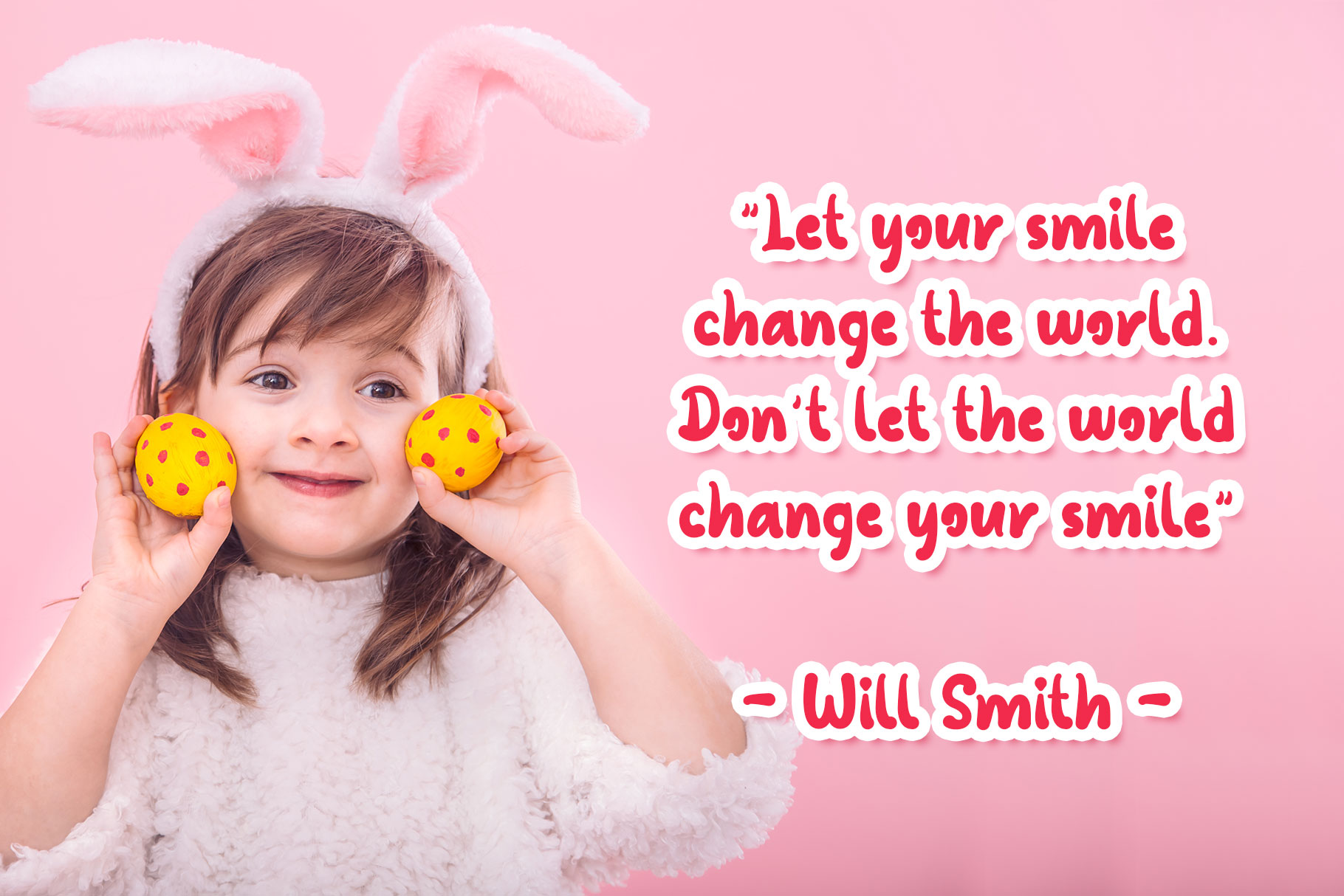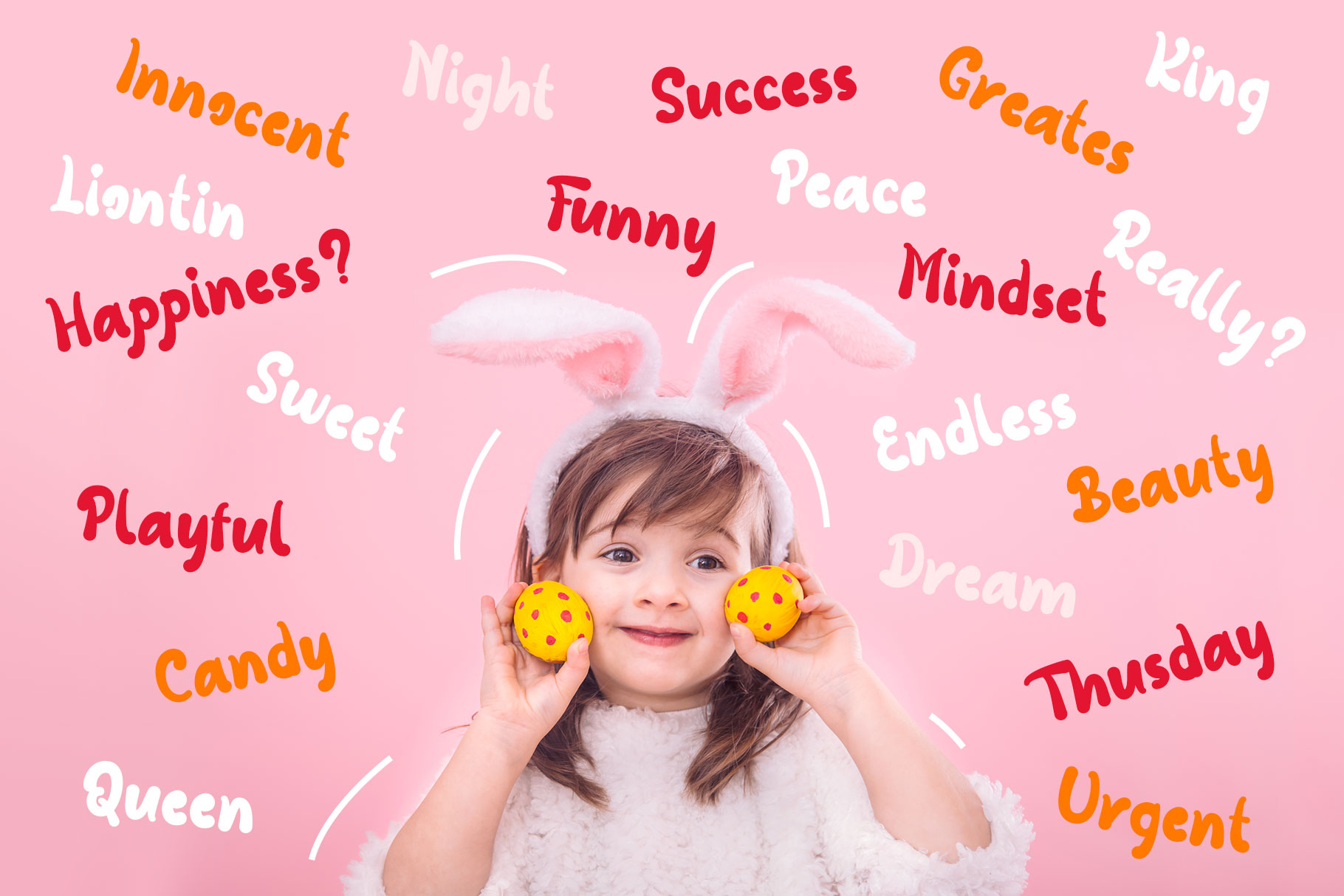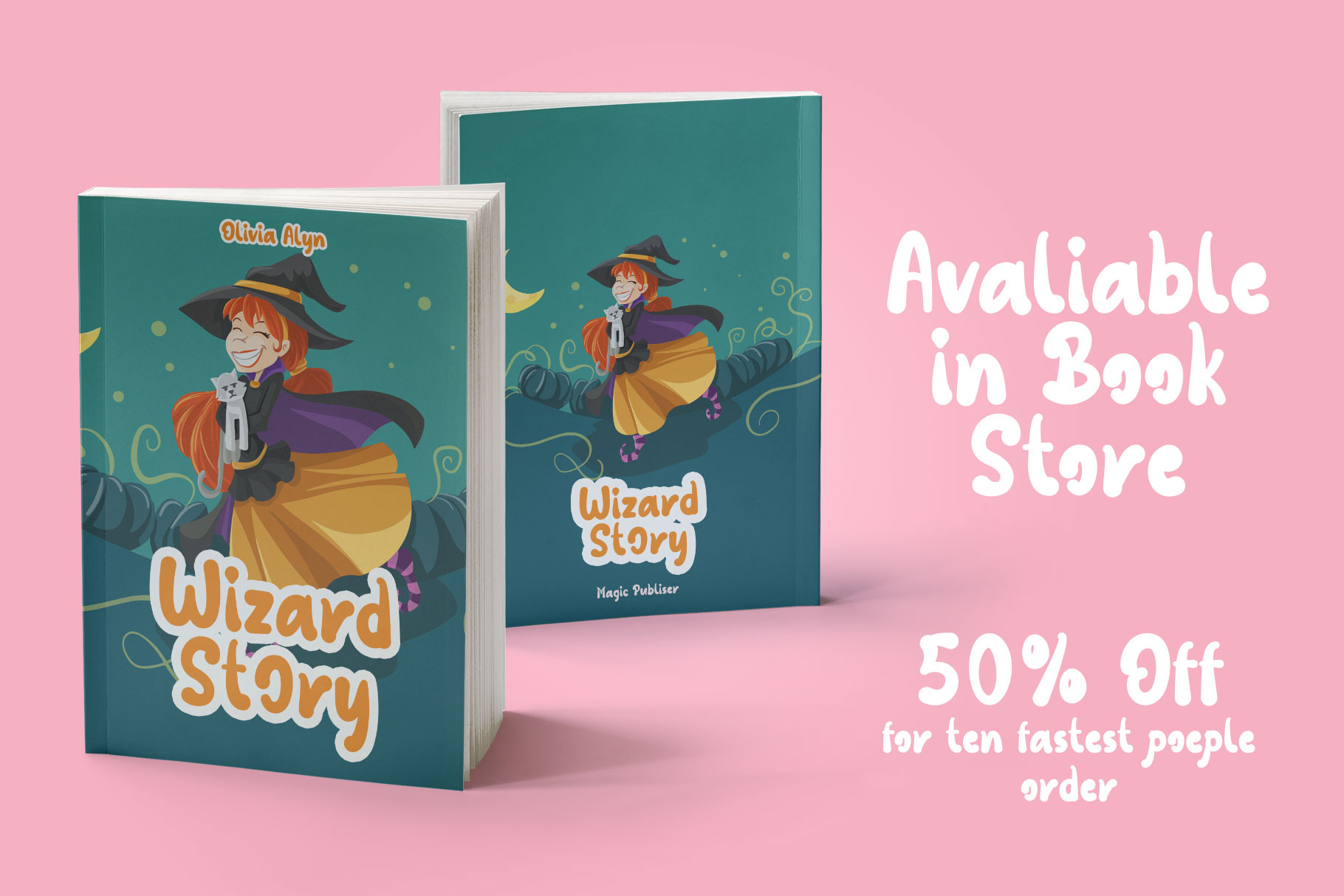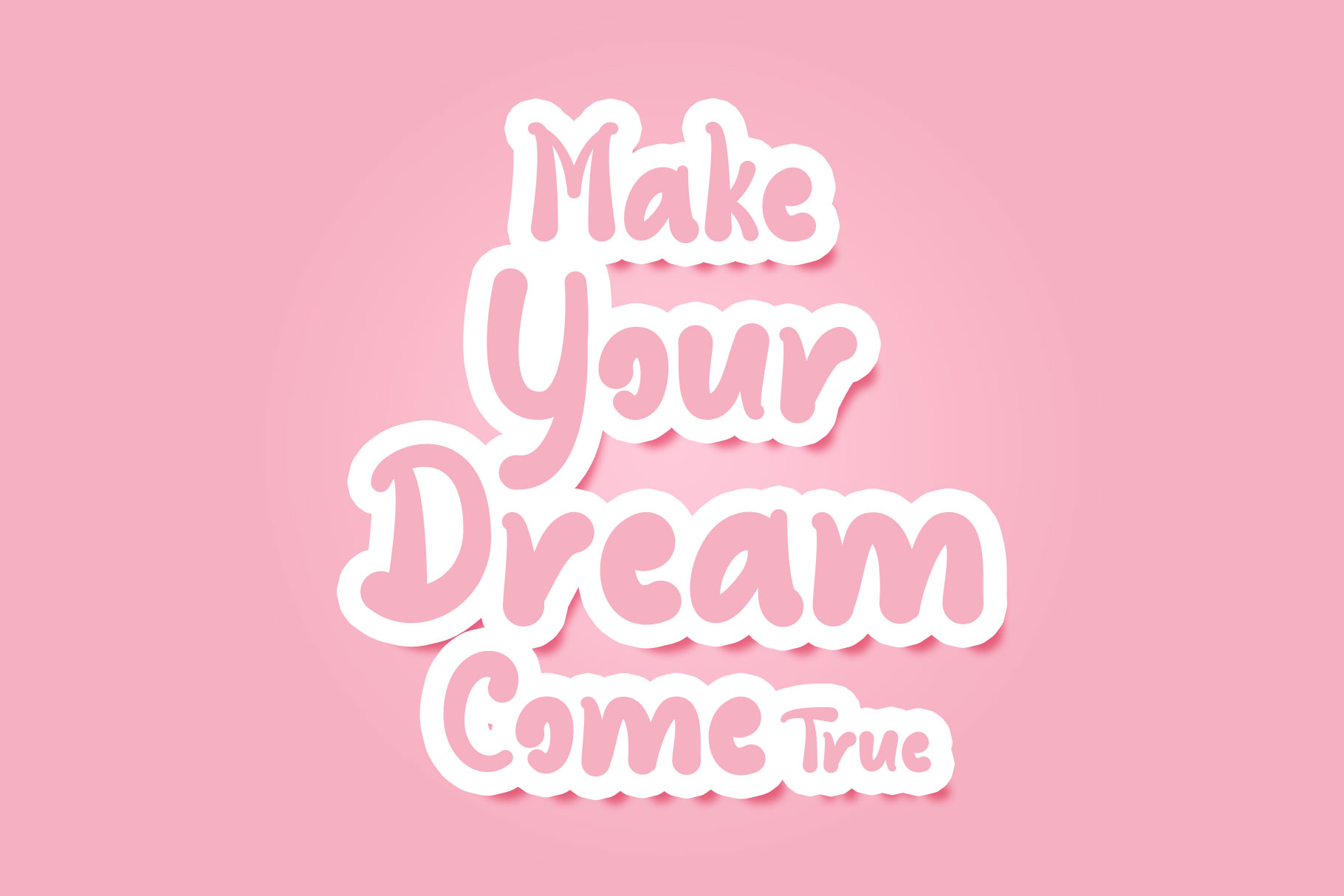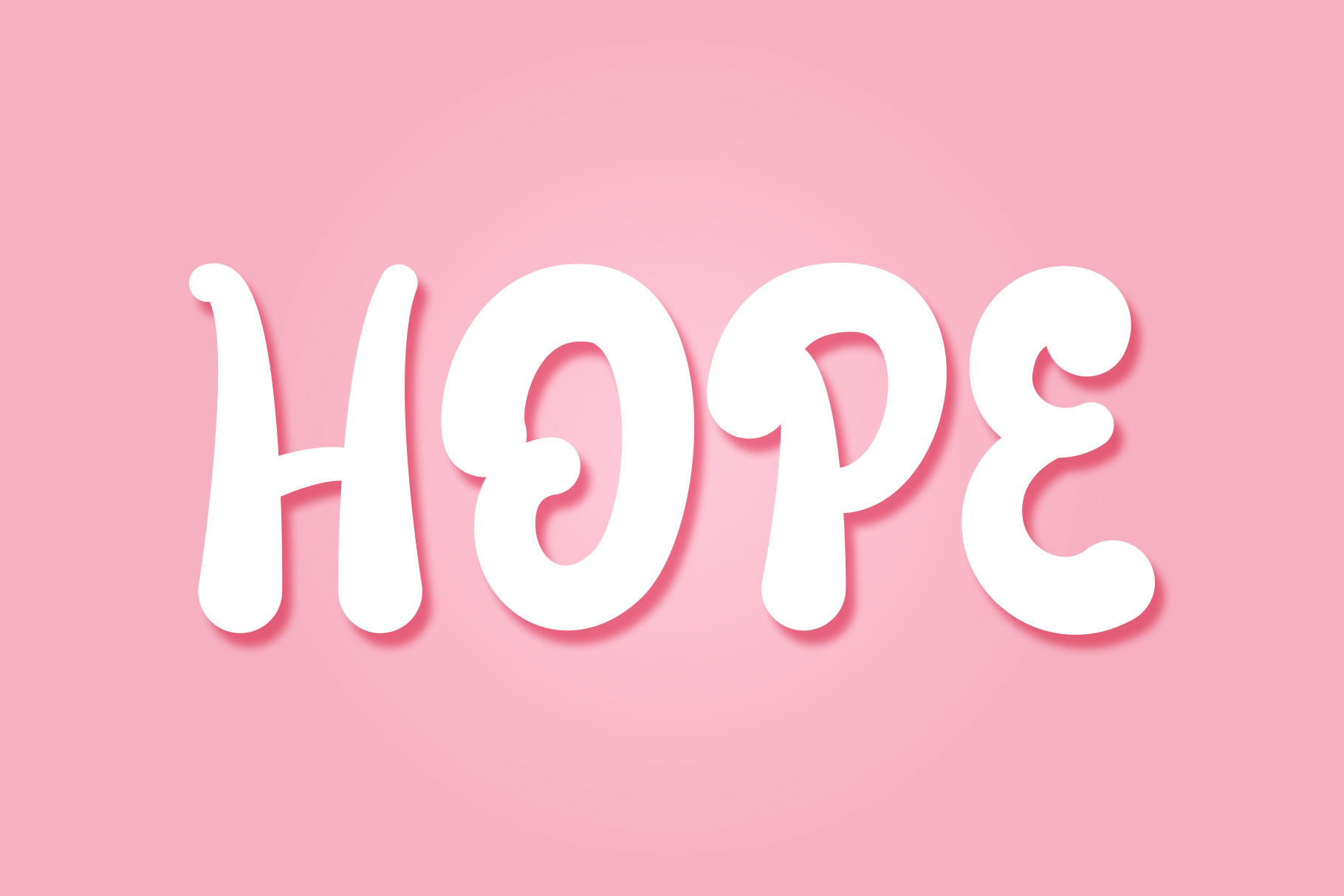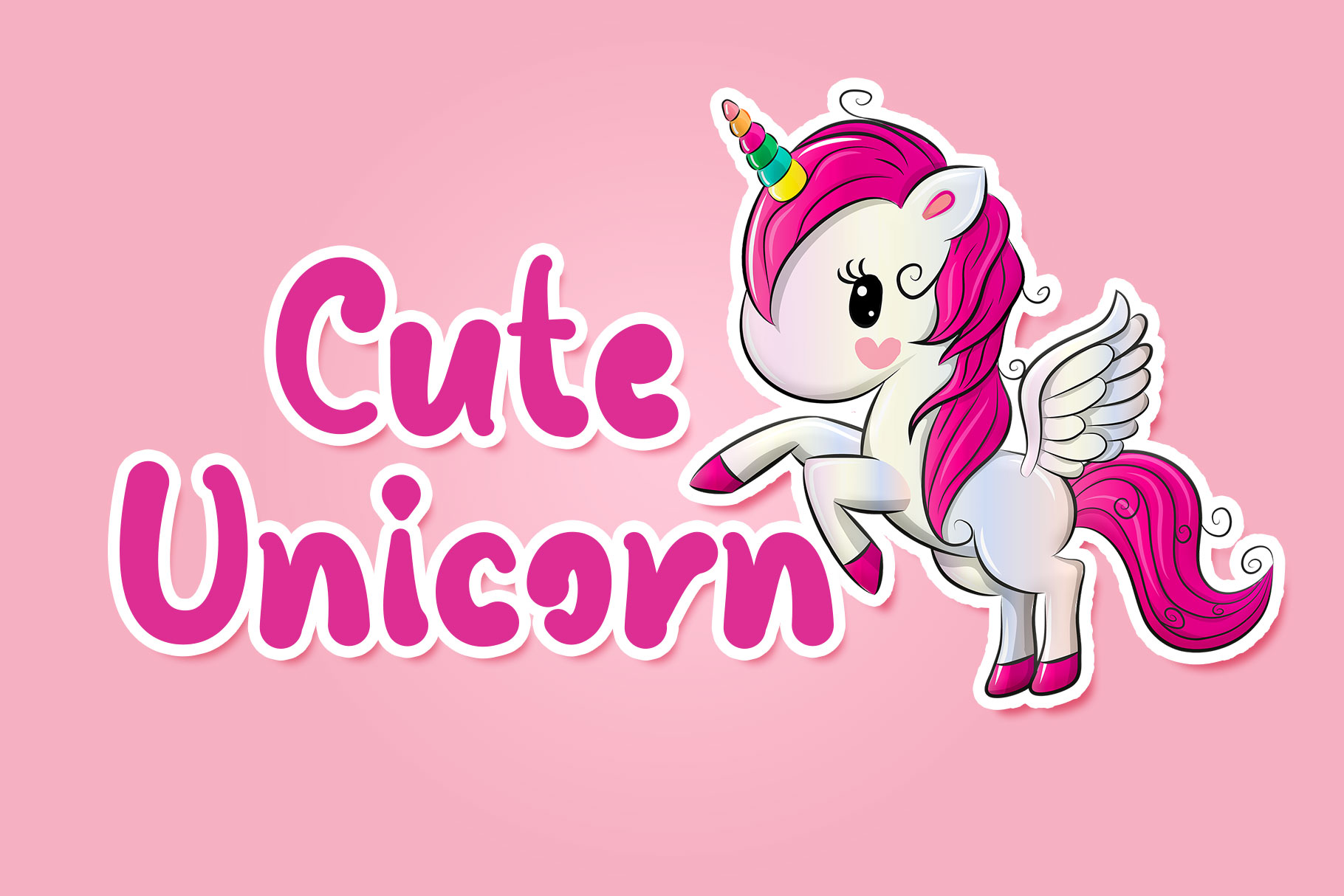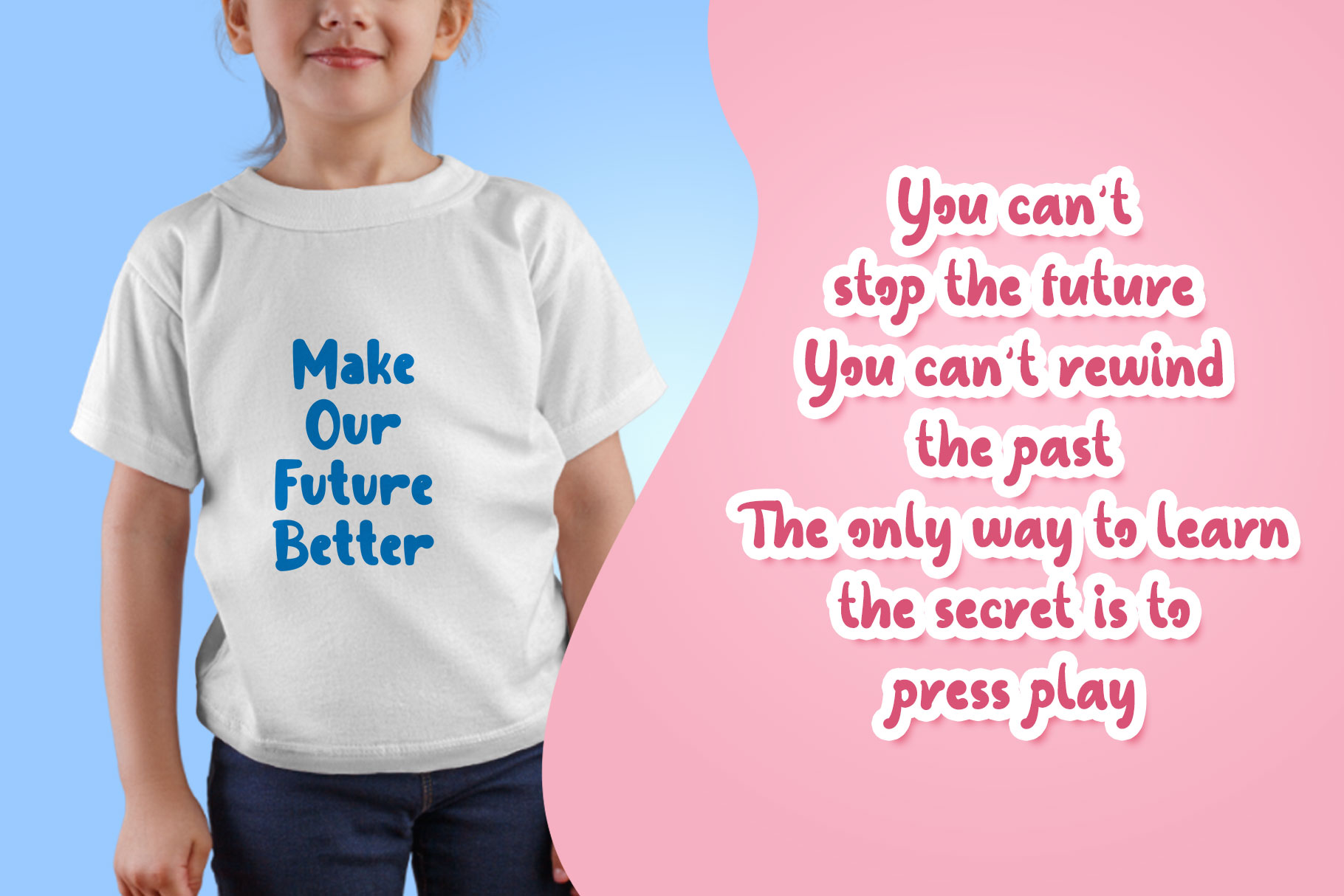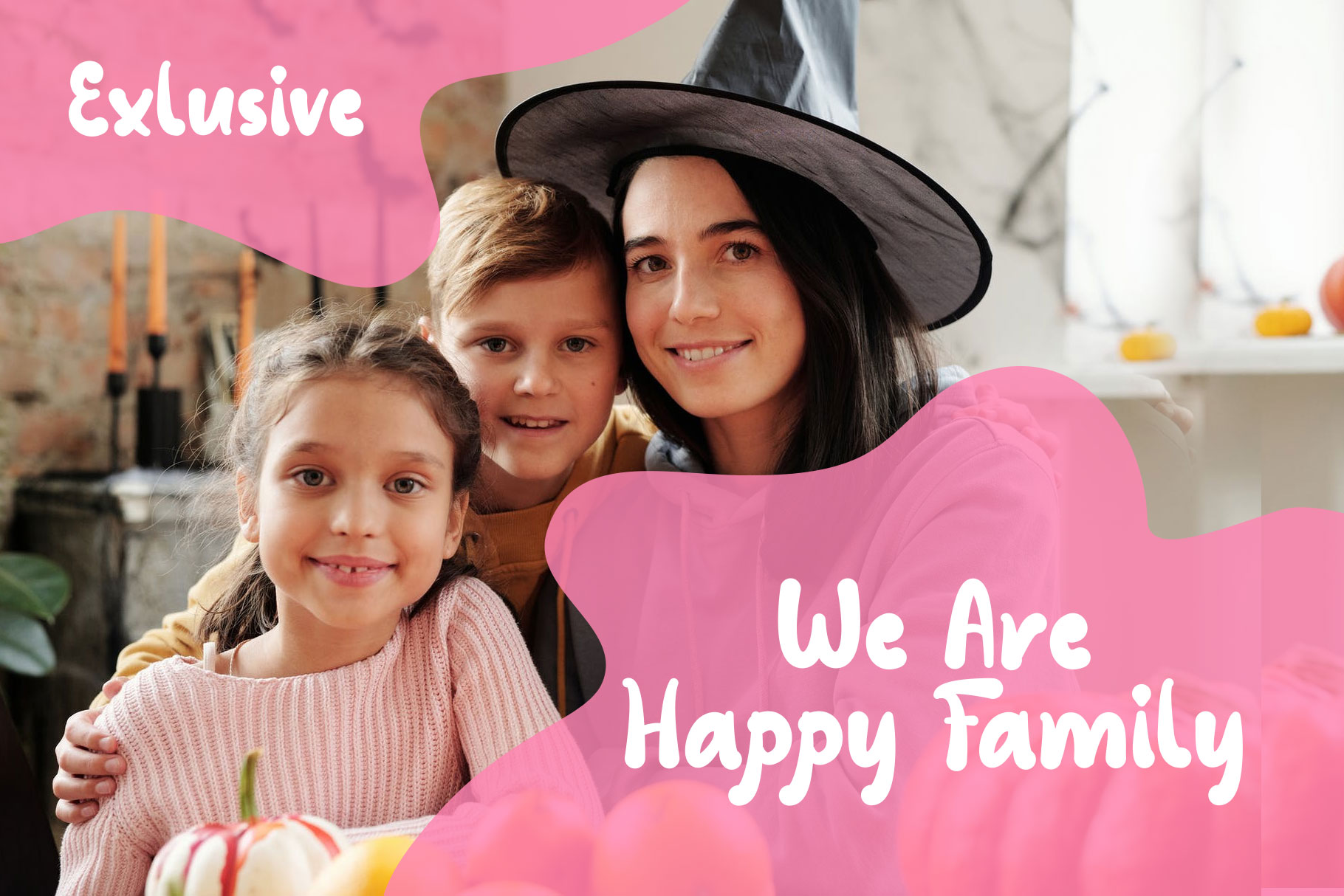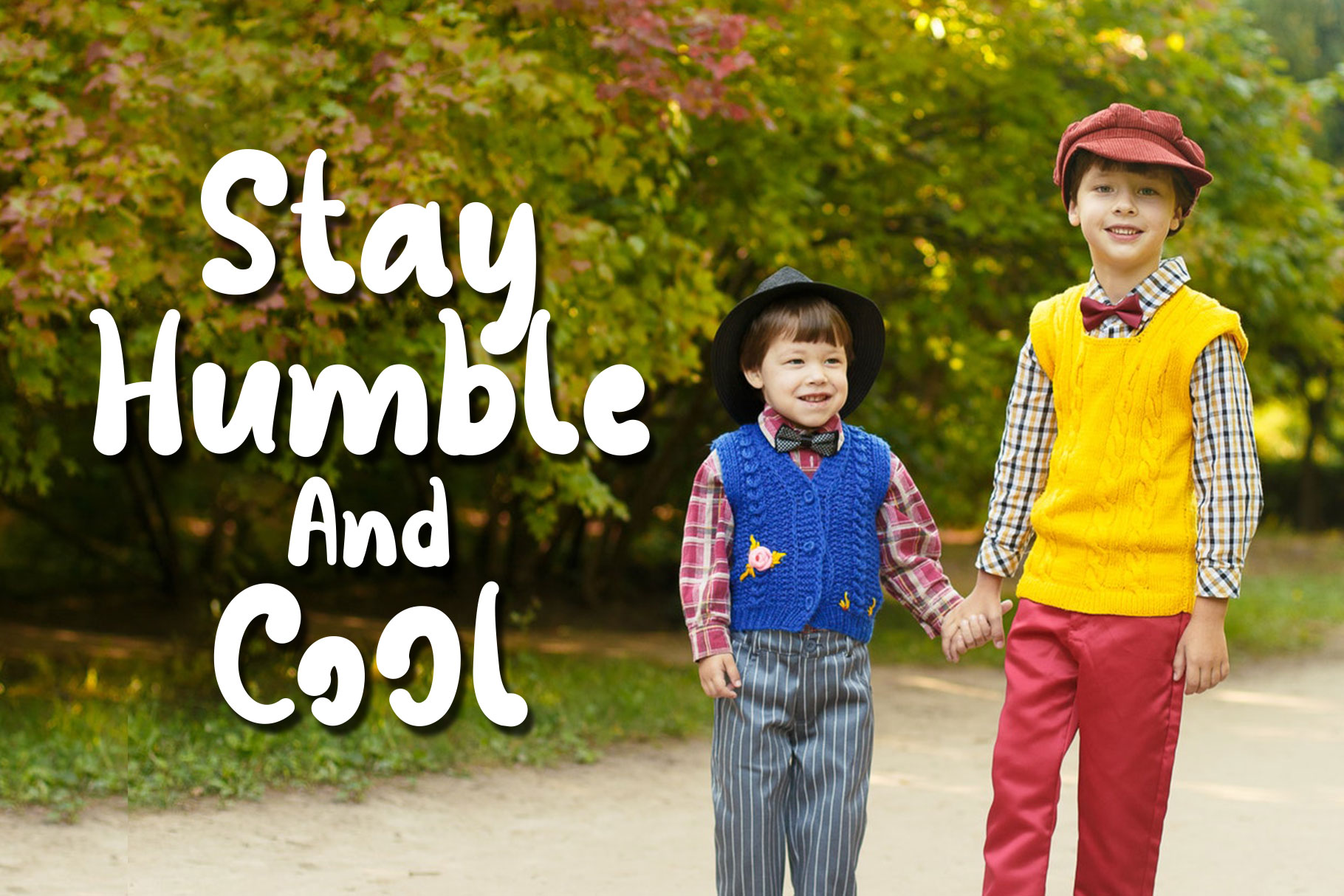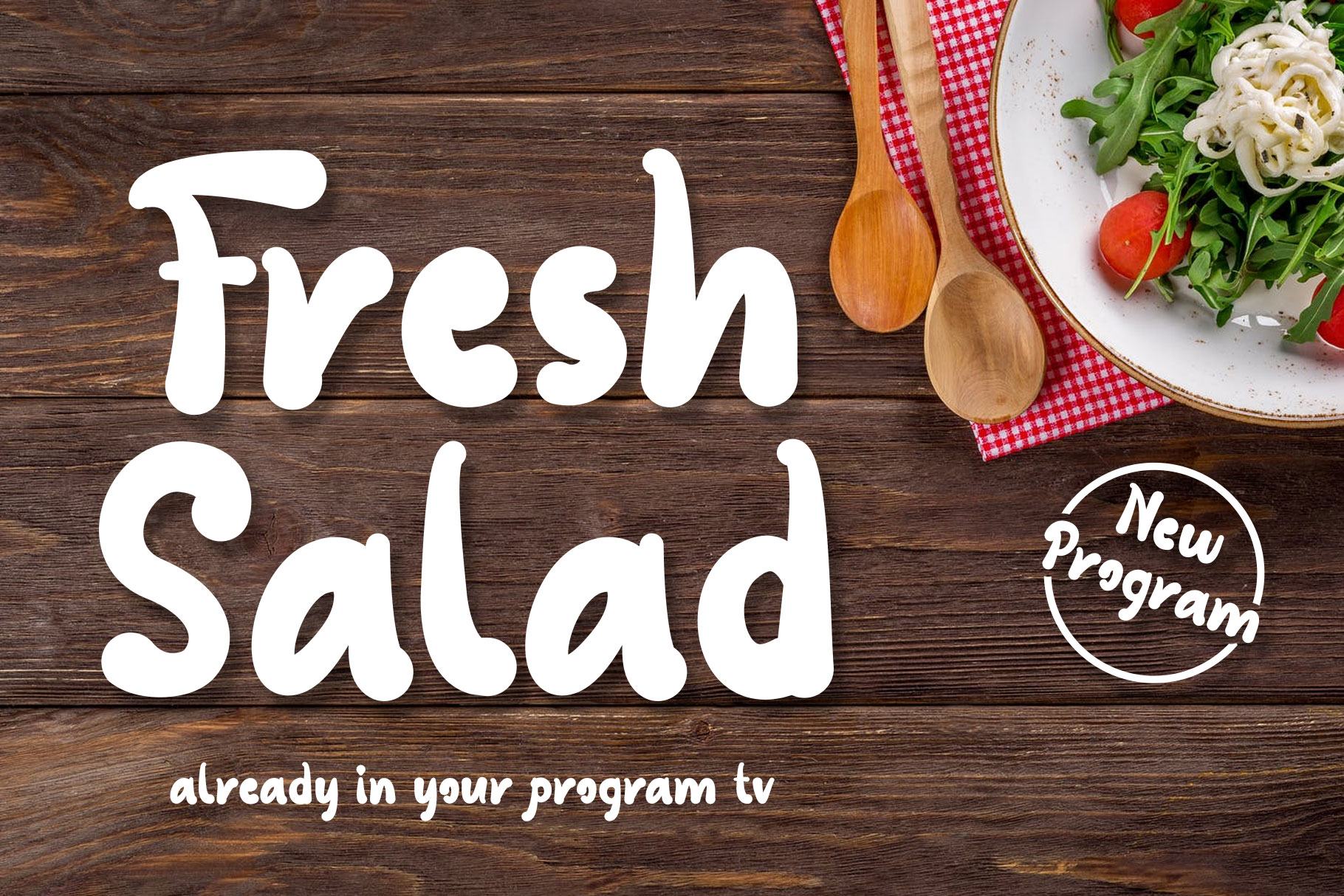
Bunny Journey Playful font
Hallo, my name is Bunny Journey, I’m a playful display font. Bunny Journey child-friendly font, i would look perfect on creating designs targeted towards childrend. Bunny Journey suitable for logos, packaging designs, posters, books, etc. Let’s we go to, make you business go to next level.